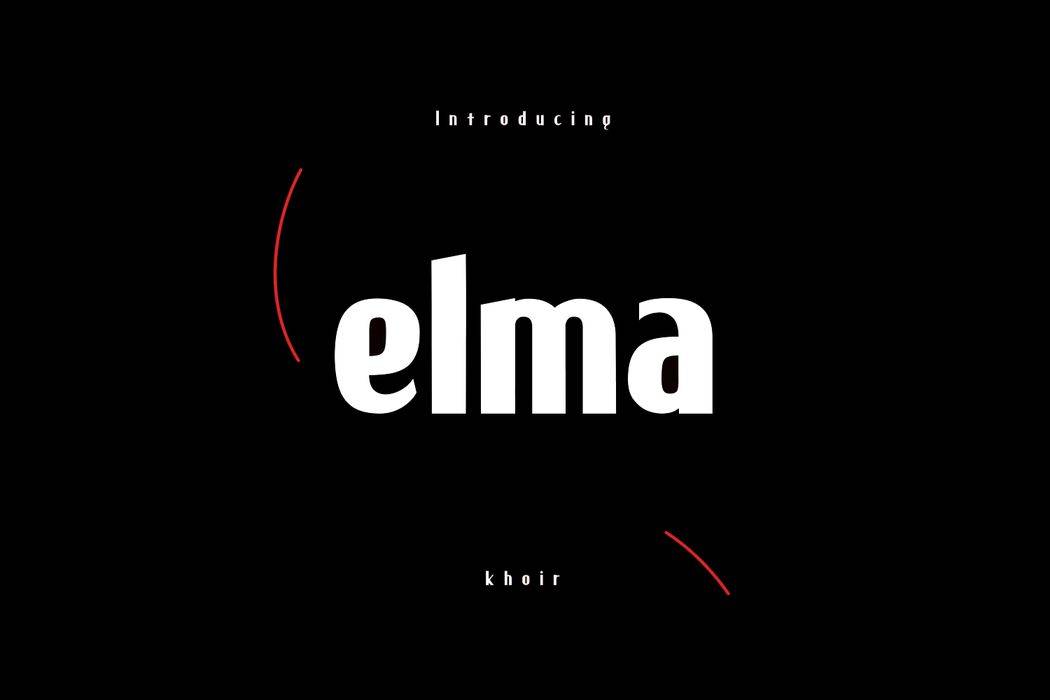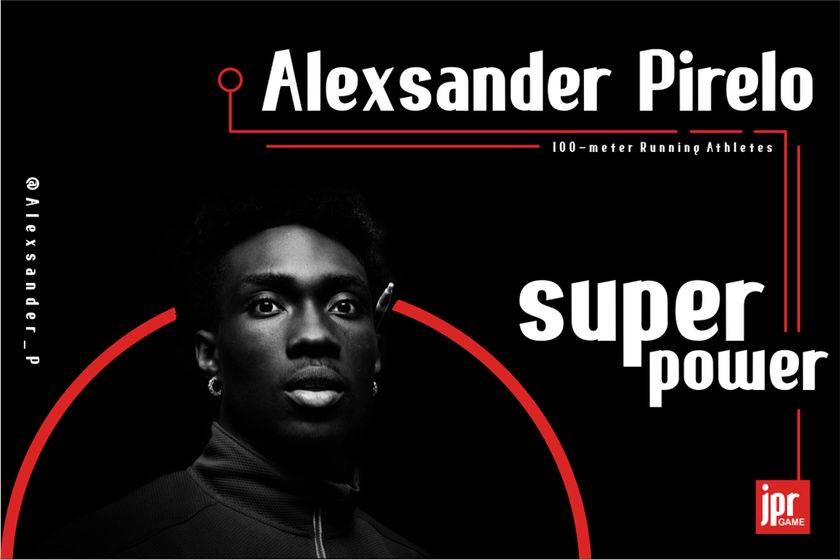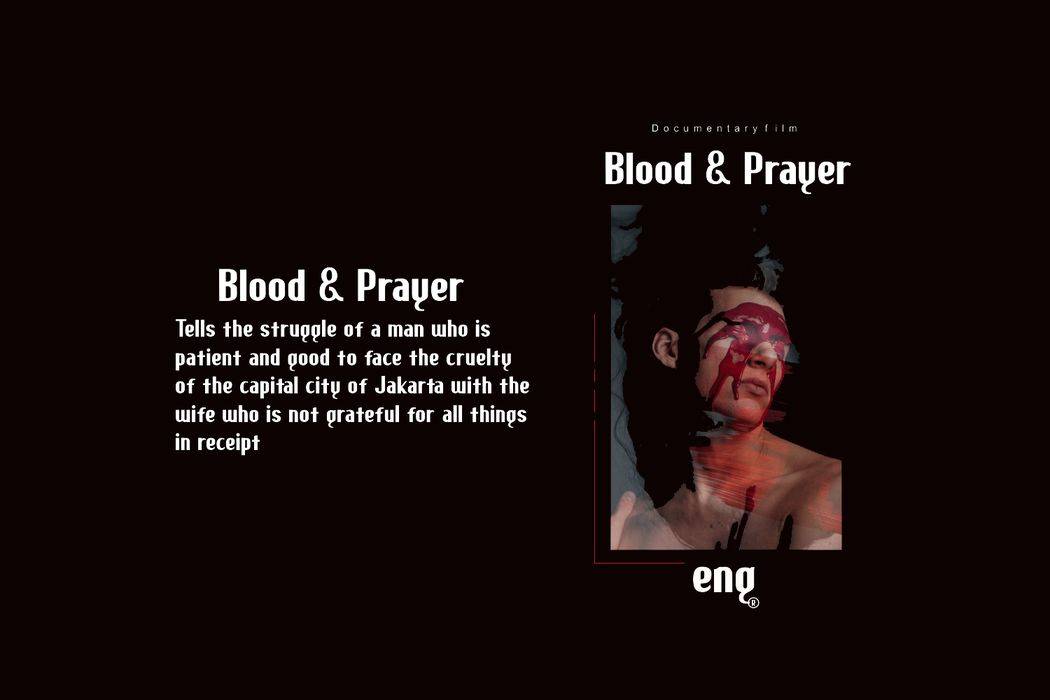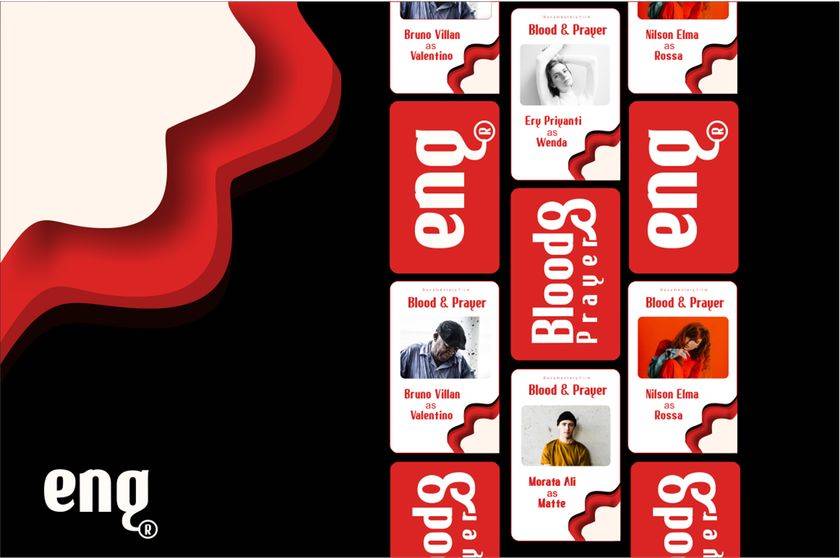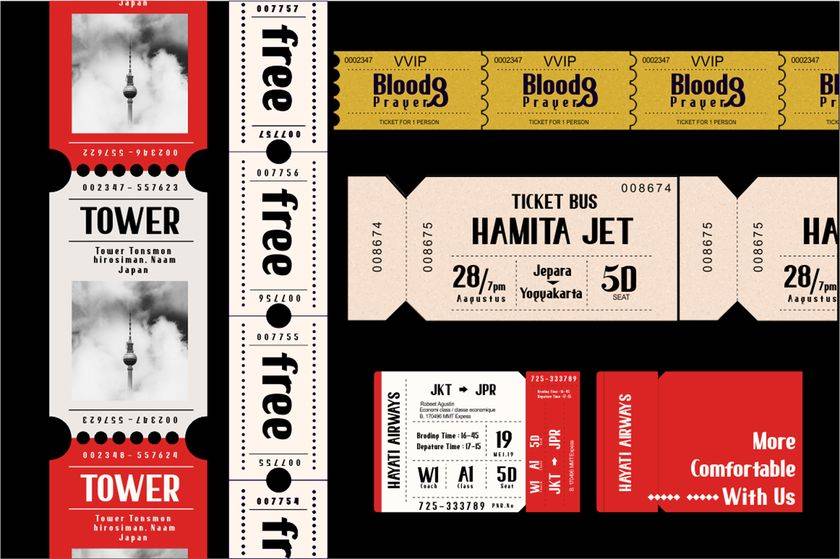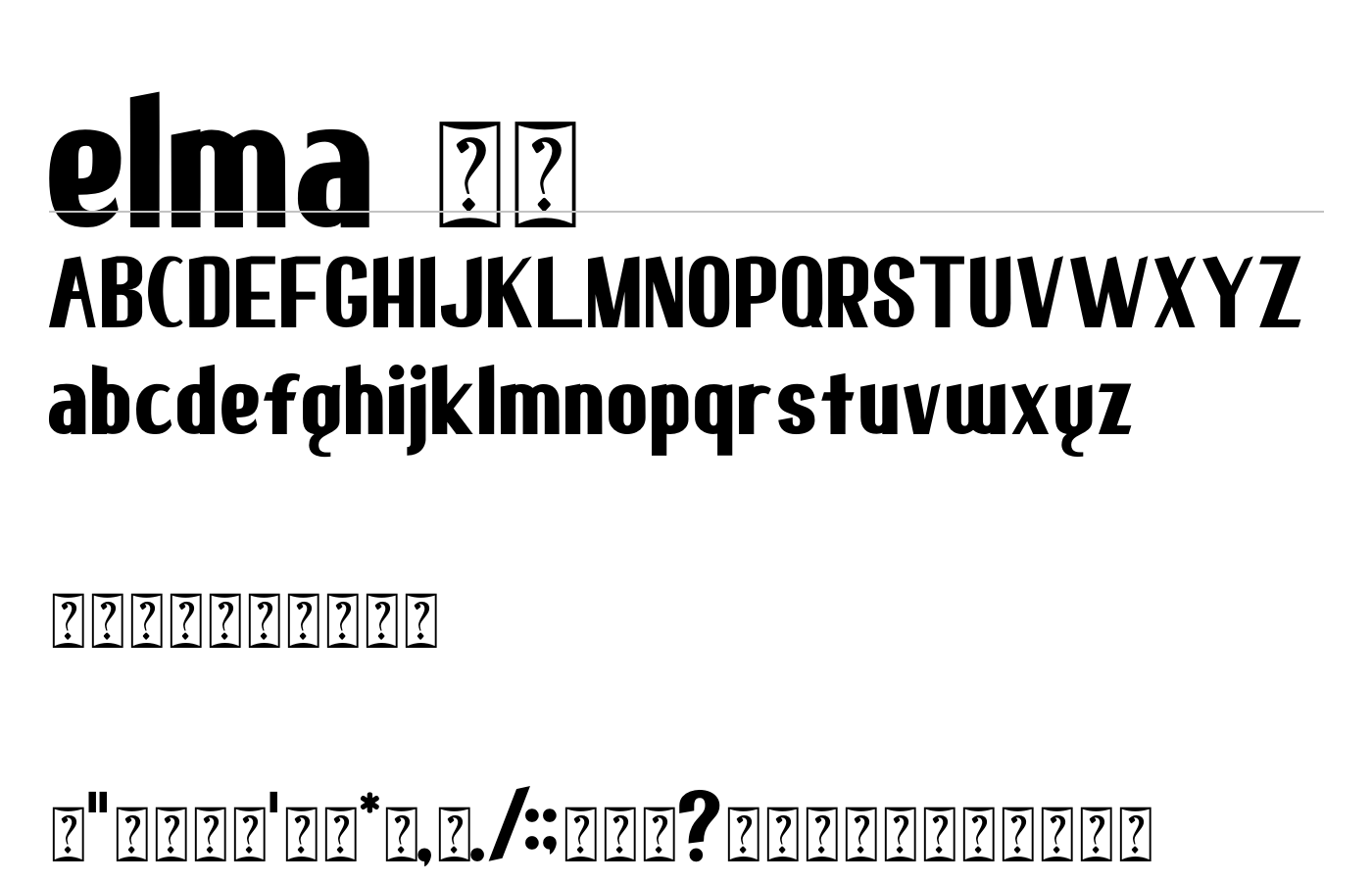
Elma is a bold, condensed sans serif font with a strong, geometric feel and a moderately high x-height that enhances readability. Its sturdy letterforms and unique shapes give it a modern, confident personality, making it ideal for impactful headlines, branding, and editorial use where a bold statement is needed. This font works well for projects that require a clean yet assertive look, such as posters, logos, and contemporary packaging.
Elma Font
About Elma Font
| Font family | Elma Font |
| Designer | Muhammad Romzul Khoir |